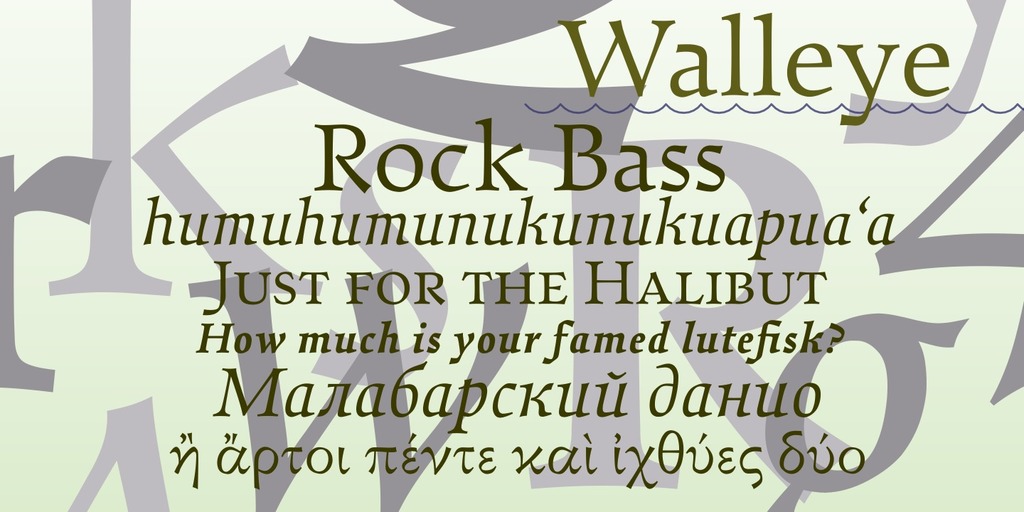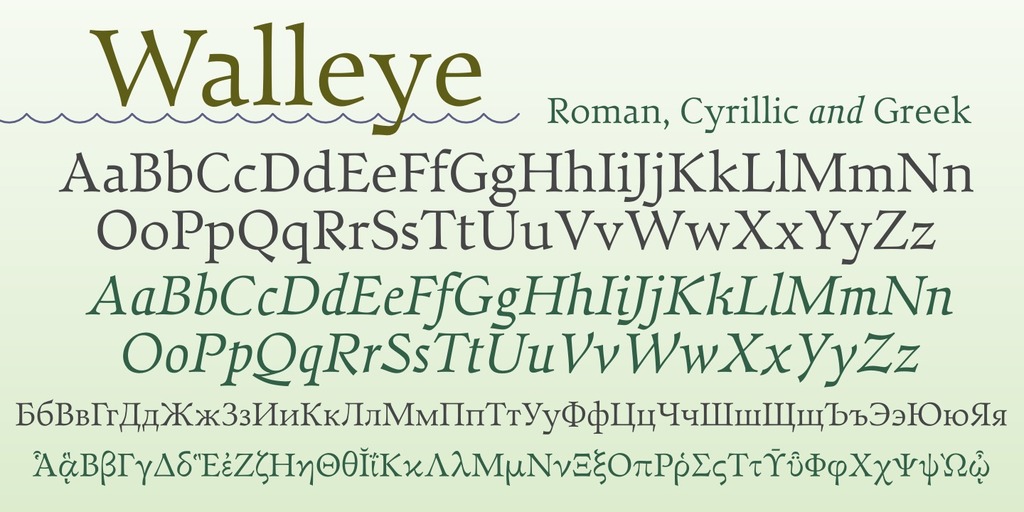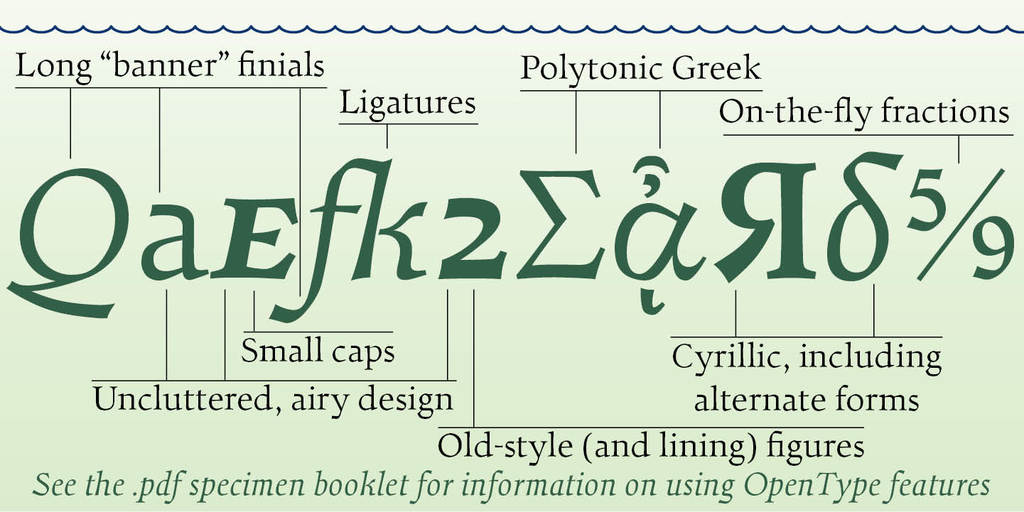
Walleye font
Walleye is an original serif font suitable for setting longer texts. Its long, banner-shaped finials and its airy letterforms give it character and an open texture on the page. Walleye has four styles: regular, italic, bold, and bold italic.
Walleye is a multilingual font. It includes the Latin, (Polytonic) Greek, and Cyrillic alphabets, and has meticulous coverage of the character sets of a broad variety of languages, including almost all spoken in Europe. It also has many OpenType features, including small caps for all supported languages, old-style figures, and highly developed typesetting options for Ancient Greek. (For examples of these OpenType features in action, see the specimen booklet.)